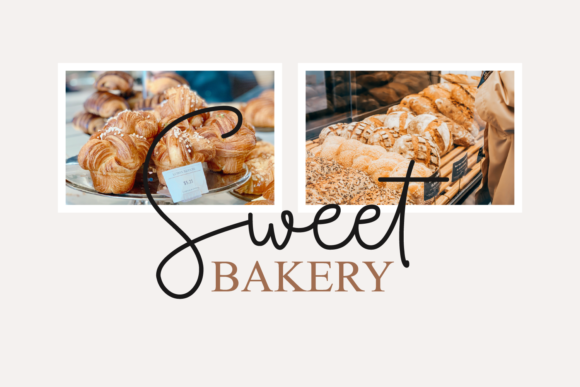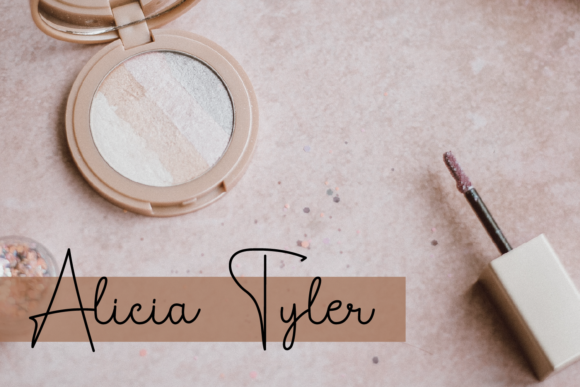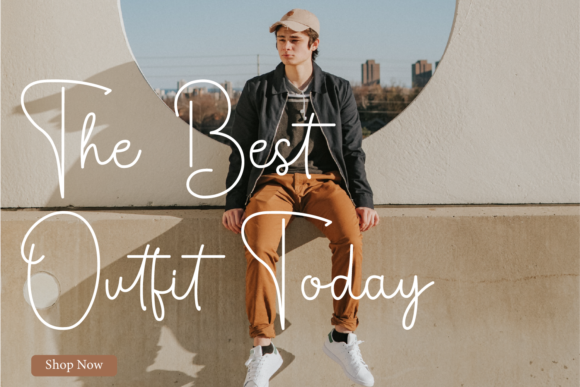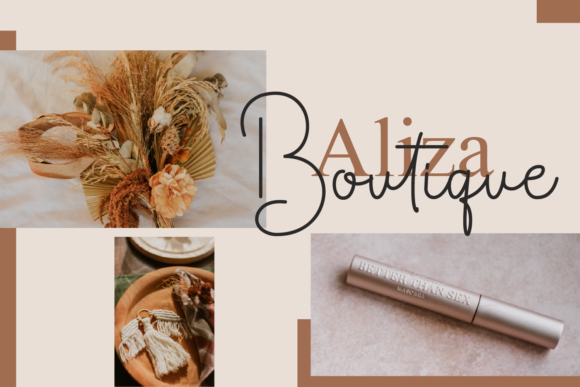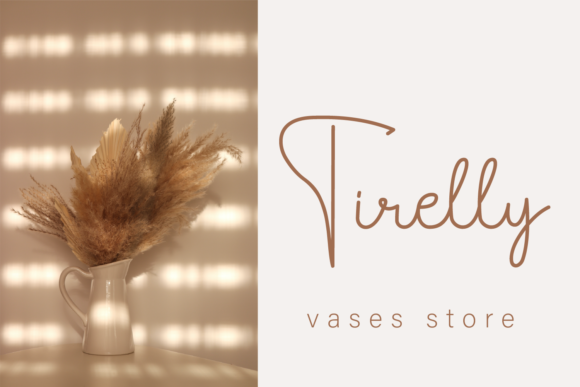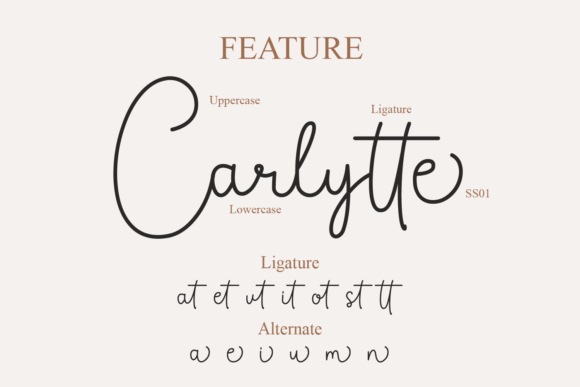
The Carlytte Font: A Designer’s Dream Come True
I’ll never forget the moment I stumbled upon the Carlytte font. I was working on a project for a client who wanted a elegant and sophisticated look, but I was struggling to find the right font to bring their vision to life. That’s when I discovered Carlytte – a thin and beautiful handwritten font that instantly caught my attention. Its distinct and well-rounded letters made it a masterpiece, and I knew right then and there that I had found the perfect fit for my project.
- ✨ Extremely versatile and can be used for a wide range of design projects, from branding and advertising to packaging and signage.
- ✅ Beautifully crafted letters with a unique and elegant feel.
- ✅ Works well in both digital and print formats.
- ✅ Easy to read, even at small font sizes.
- ⚠️ Some users may find the font a bit too thin for certain design applications, such as body text or long-form reading.
- ⚠️ Limited availability of stylistic alternates and glyphs, which may limit its use for more complex designs.
A Practical Guide to Using Carlytte: Tips and Tricks
If you love Carlytte, you may also want to check out these similar fonts and alternatives:
- Pacifico: A beautiful, elegant script font with a similar feel to Carlytte. Use Pacifico for designs that require a more luxurious and high-end look.
- Great Vibes: A modern and stylish script font with a similar sense of elegance. Use Great Vibes for designs that require a more contemporary and trendy look.
- Alex Brush: A whimsical and elegant script font with a similar feel to Carlytte. Use Alex Brush for designs that require a more creative and artistic look.
- Lobster: A classic and sophisticated script font with a similar sense of elegance. Use Lobster for designs that require a more traditional and timeless look.
The Story Behind Carlytte: Designer Inspiration
Carlytte was designed by a talented typographer who wanted to create a font that was both elegant and versatile. Inspired by the classic script fonts of the past, the designer aimed to create a font that would be perfect for a wide range of design applications, from branding and advertising to packaging and signage. With its unique and well-rounded letters, Carlytte is a true masterpiece that is sure to inspire designers and creatives alike.
Q: What is the Carlytte font best used for?
A: Carlytte is a versatile font that can be used for a wide range of design applications, including branding, advertising, packaging, signage, and more.
Q: Is Carlytte a script font?
A: Yes, Carlytte is a script font with a elegant and sophisticated feel.
Q: Is Carlytte easy to read?
A: Yes, Carlytte is a highly legible font that is easy to read, even at small font sizes.